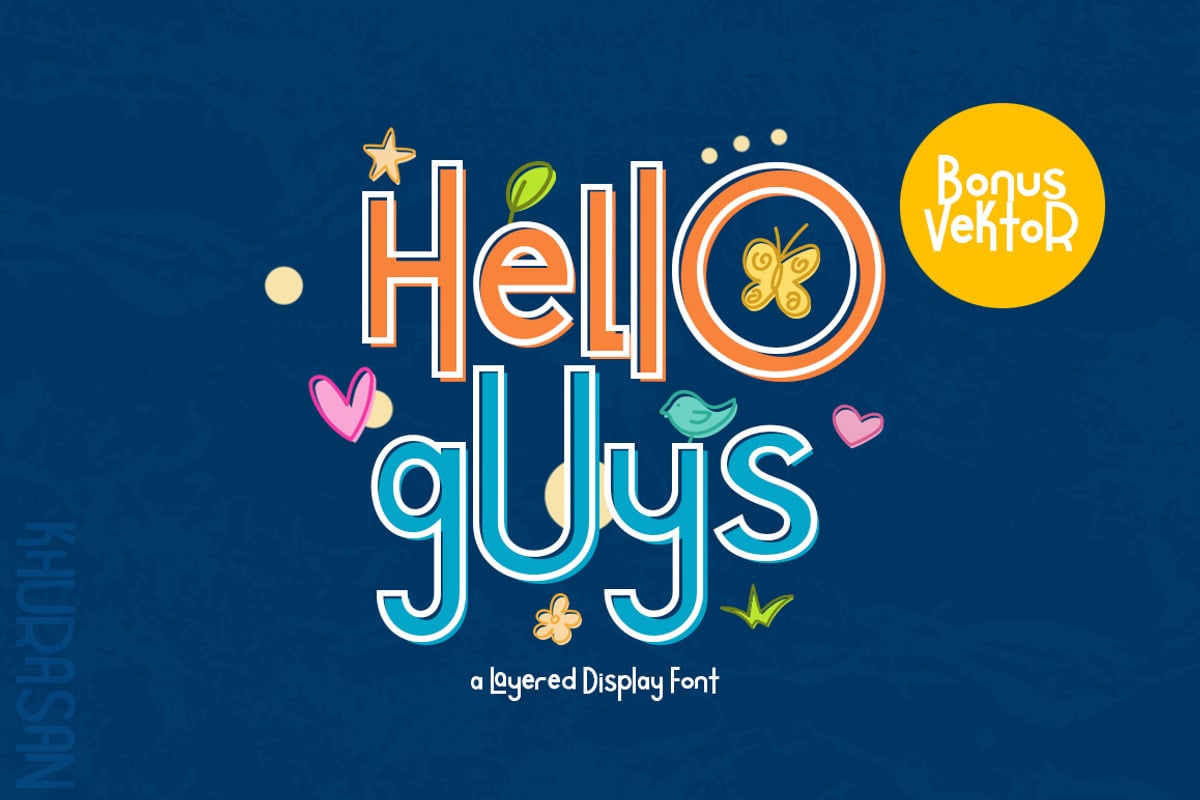
Hello Guys Layered Font
Bring joy to your designs with Hello Guys, a vibrant layered font perfect for cheerful, fun projects. This delightful typeface features awesome character design with two distinctive styles - regular and line versions. The layered construction method allows you to create stunning multi-dimensional text effects that pop off the page. Hello Guys font includes multilanguage support, making it versatile for global projects. It's ideally suited for logos, branding materials, greeting cards, posters, a...